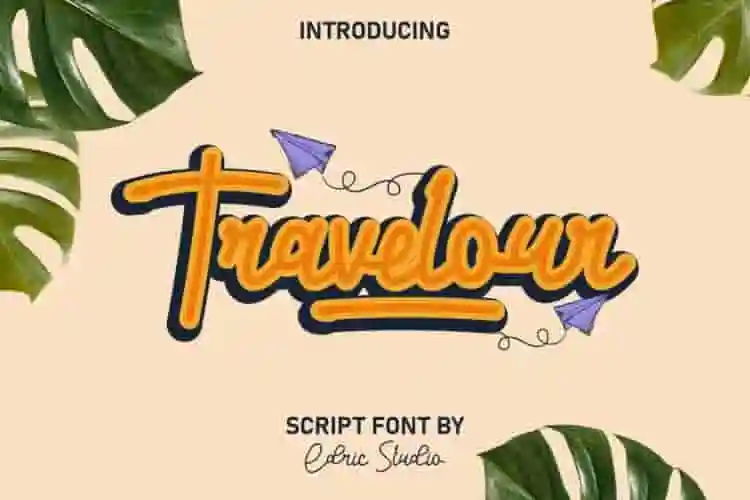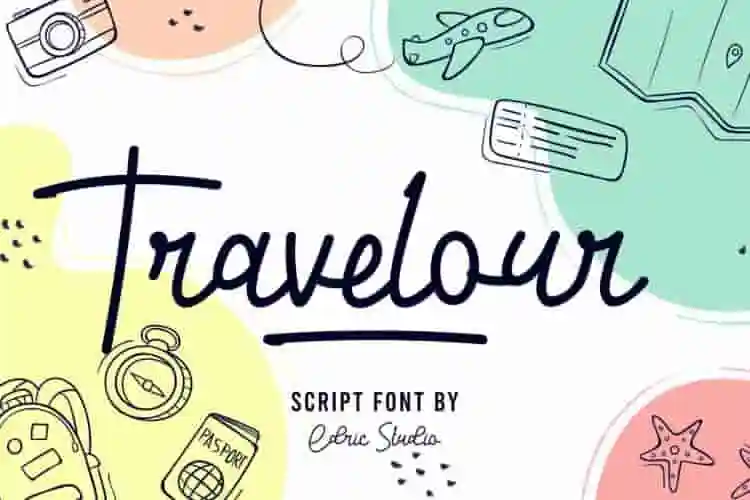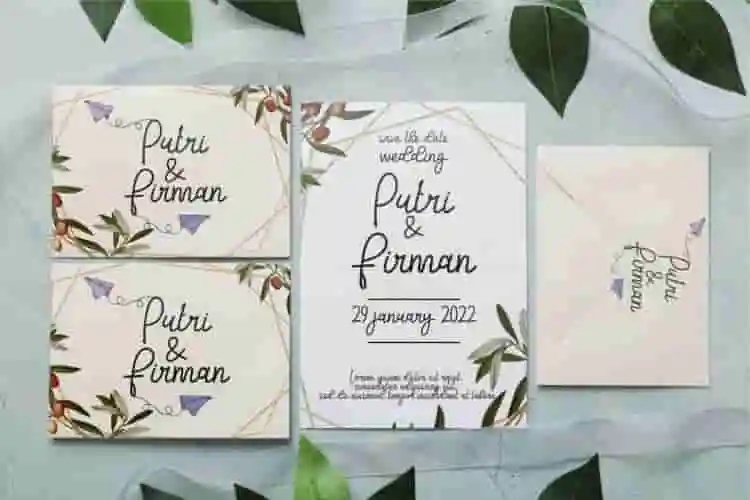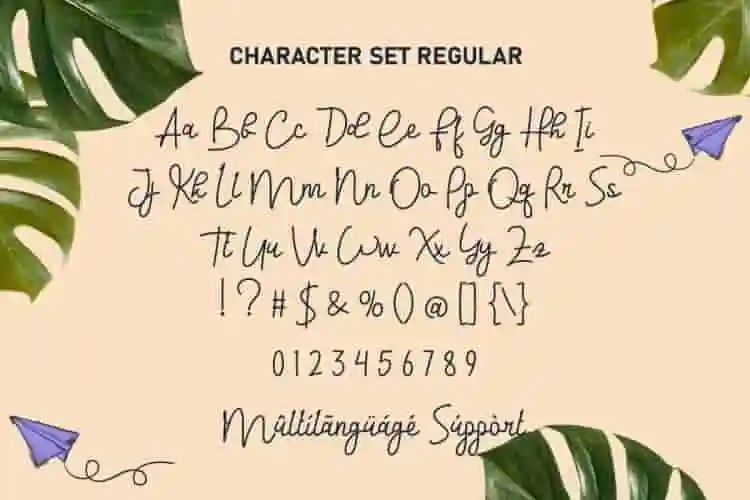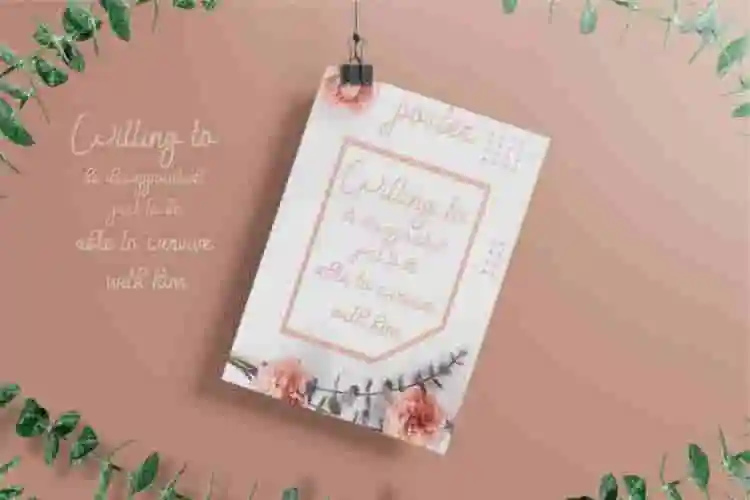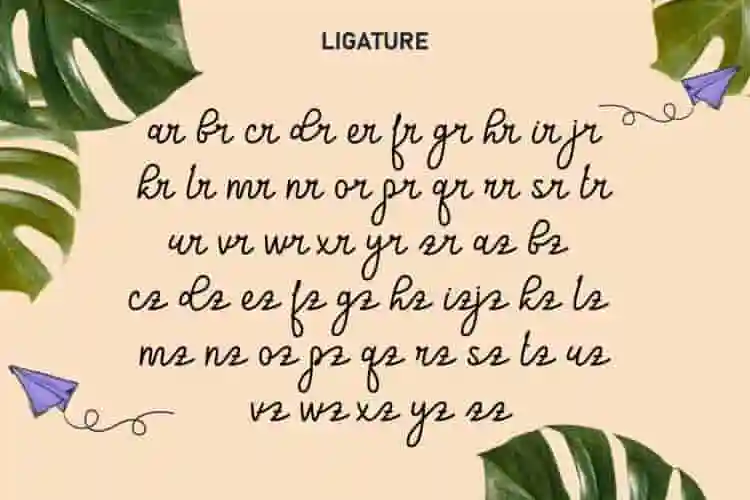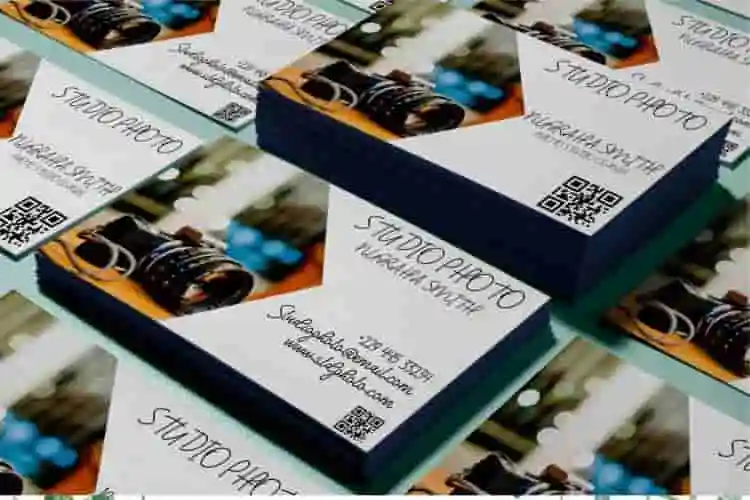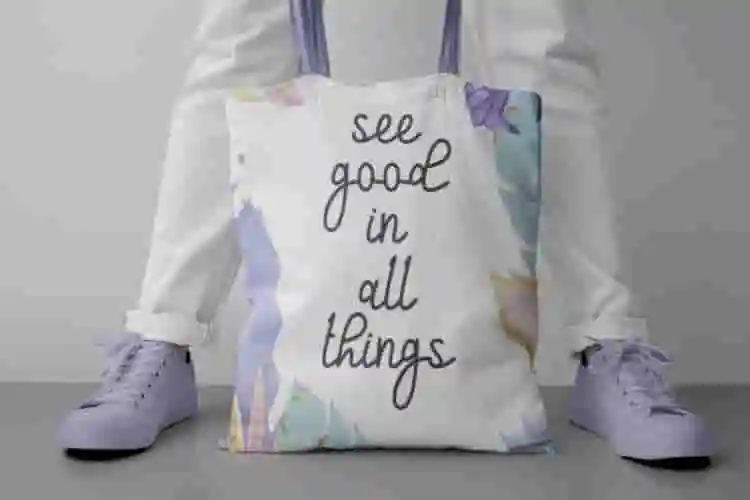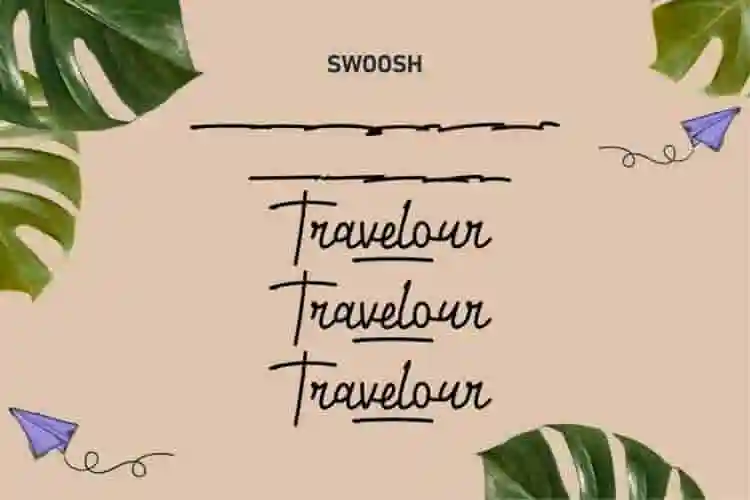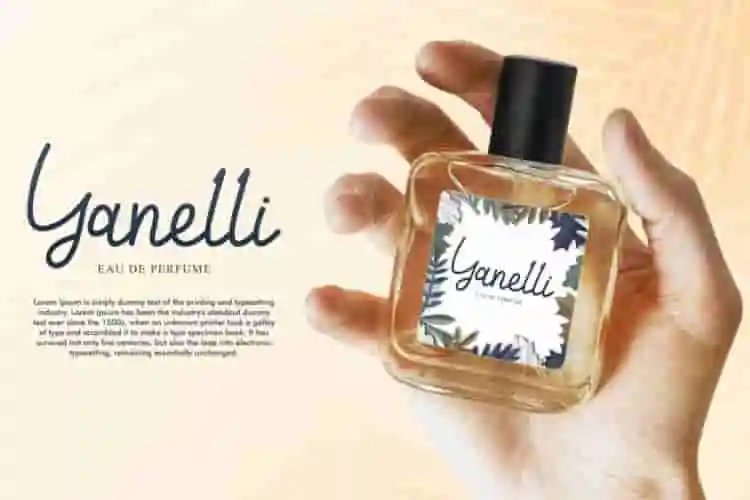
Travelour Playful Font is a monoline script font with cheerful look, created by EdricStudio. This font uses a single brush line/ called monoline which is similar to the simple look of handwritten that is still easy to read and will be suitable for many industries, such as advertising, event organizer, fashion brand, handicrafts, kids stuff, perfume, photography, school, travel, and more!
Are you searching for a unique brush font that adds a touch of fun, freedom, and handcrafted charm to your design projects? Meet Travelour – a playful brush font that brings creativity to life with every stroke.
Travelour Playful Font comes with a full set of Uppercase and Lowercase Basic Characters, Number, a large range of Punctuation and Symbol, Ligature, Swoosh. It has a stunning characters set, perfectly managed with well spaced and kerning. Travelour Playful Font will be great for any project (with extended license) including: brand logo, business card, invitation, label, mockup design, poster, product packaging, screen printing, stationery, website, etc.
Looking for the perfect brush font to elevate your creative projects? Travelour is a playful and bold brush typeface designed to give your work a vibrant, handcrafted look. Each letter is carefully drawn with a brush, capturing the raw energy and flow of hand-lettering.
Inspired by the freedom of travel and artistic expression, Travelour brings a unique charm to any project. This playful brush font is ideal for designs that need a personal touch—its natural brush texture adds authenticity and creativity, making it more than just a font, but a design tool.
- Full set of uppercase & lowercase letters
- Numbers and punctuation